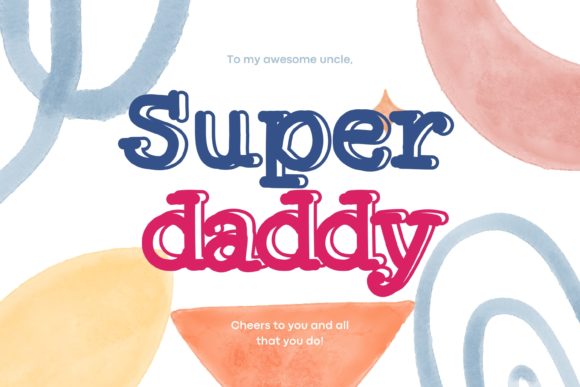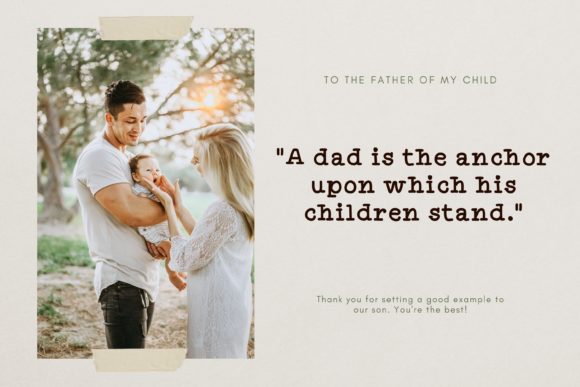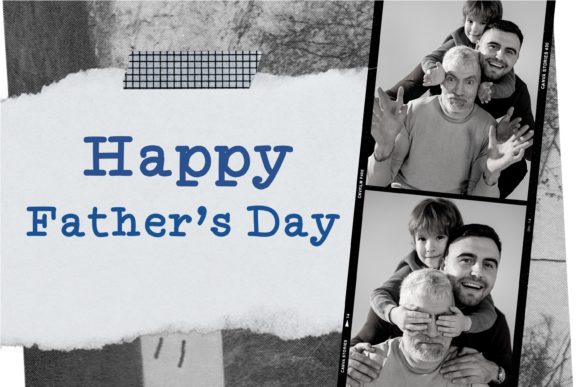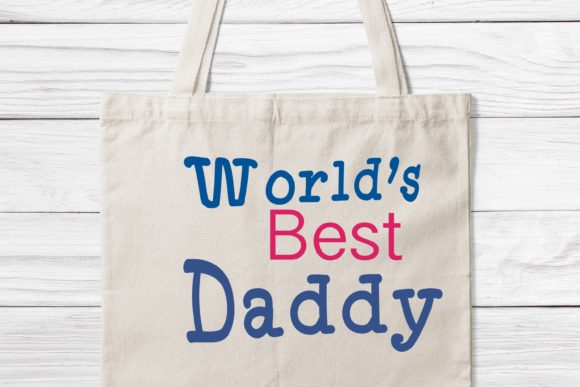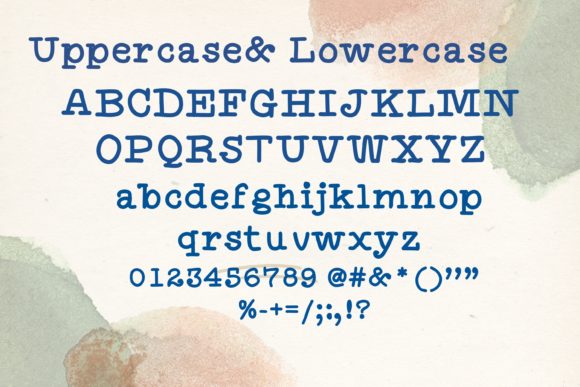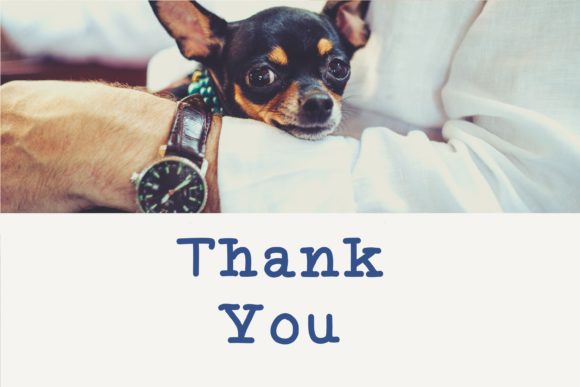
Super Daddy
Super Daddy: A Simple and Sweet Slab Serif Font
Super Daddy is a charming slab serif font that combines simplicity with sweetness. Its clean lines and friendly appearance make it an ideal choice for a wide range of creative projects, ensuring that your designs stand out beautifully.
Key Features of Super Daddy
• Simple Design: Features an uncomplicated look that enhances readability.
• Sweet Aesthetic: Offers a delightful and inviting vibe, perfect for lighthearted designs.
• Slab Serif Structure: Maintains the characteristic thick, rectangular serifs typical of slab serif fonts.
• Versatile Application: Easily matched to an incredibly large set of projects, from digital to print.
• Stand-Out Quality: Designed to elevate your creative ideas and make them visually appealing.
Ideal Uses for Super Daddy
Super Daddy’s unique characteristics make it particularly well-suited for:
• Invitations and greeting cards for cheerful occasions.
• Branding and logo design that requires a friendly touch.
• Website headers and digital content aimed at engaging audiences.
• Social media graphics that need to convey warmth and approachability.
• Print materials such as flyers and brochures that benefit from a sweet aesthetic.
When incorporating Super Daddy into your designs, consider the following tips:
• Use for both headlines and body text to showcase its versatility while maintaining readability.
• Experiment with different sizes to highlight the font’s sweet details.
• Consider pairing with complementary sans-serif fonts for body text to create contrast.
• Take advantage of its adaptability across various themes and styles in your projects.
Super Daddy is an excellent choice for designers looking to add a simple and sweet slab serif font to their typographic toolkit. Its ability to enhance various design projects makes it stand out in the world of typography. Whether you’re working on branding, creating layouts for cheerful events, or developing print materials, Super Daddy offers the perfect blend of simplicity and charm.
Add Super Daddy to your creative projects and explore how it can enhance your designs with its delightful and readable style. From inviting headlines to engaging text blocks, this font provides the tools to create impactful and memorable typography that resonates with audiences.